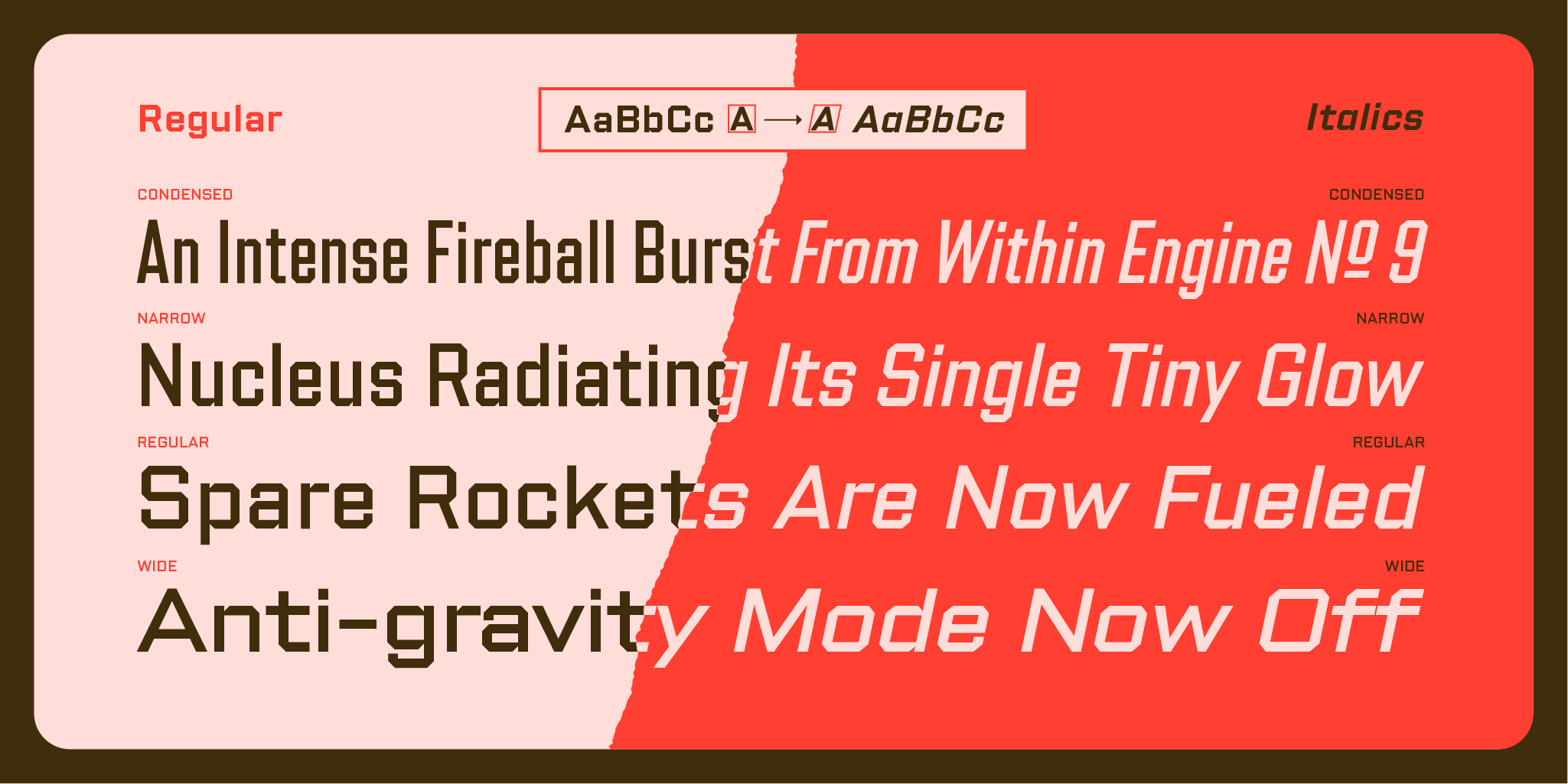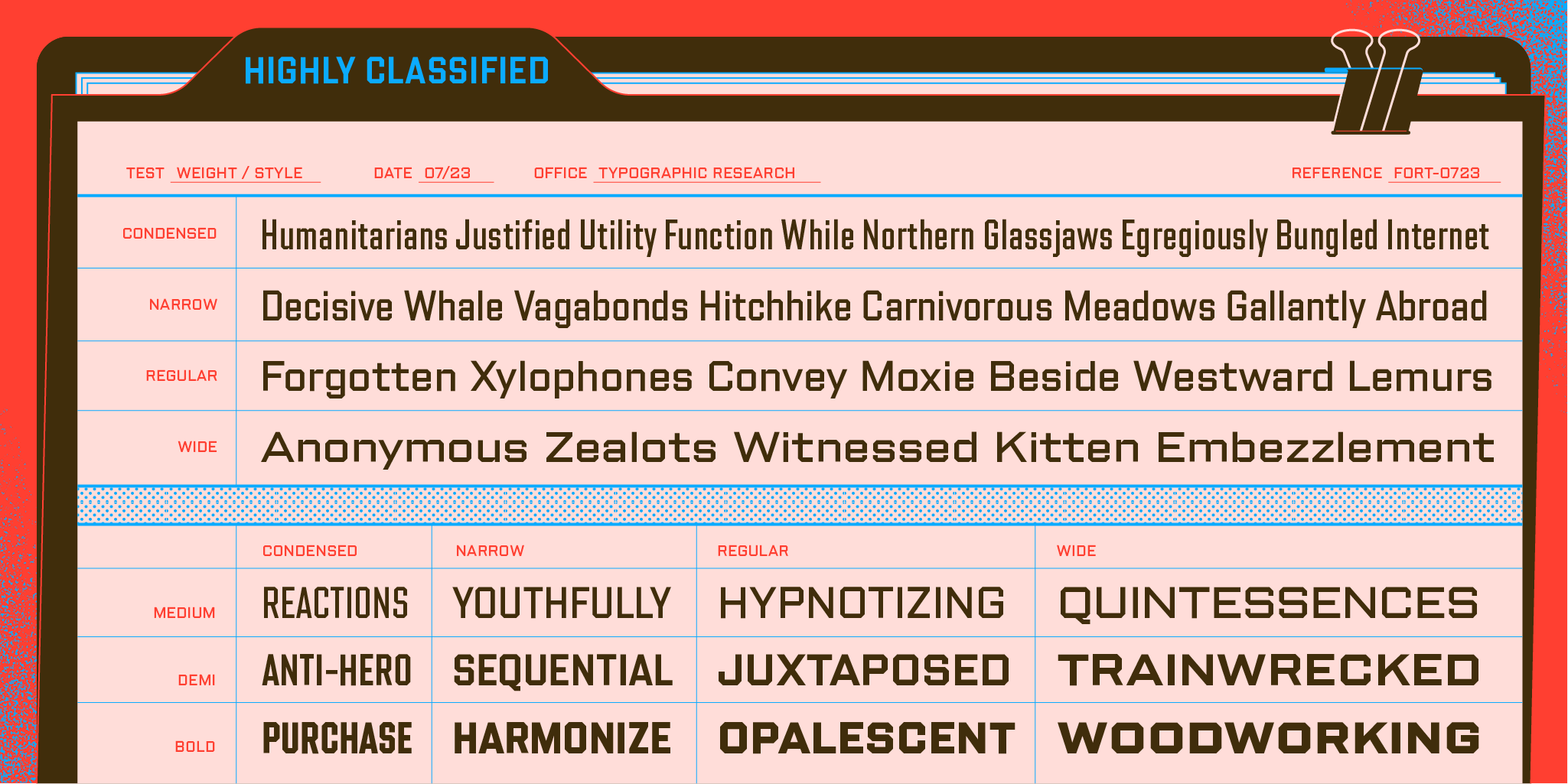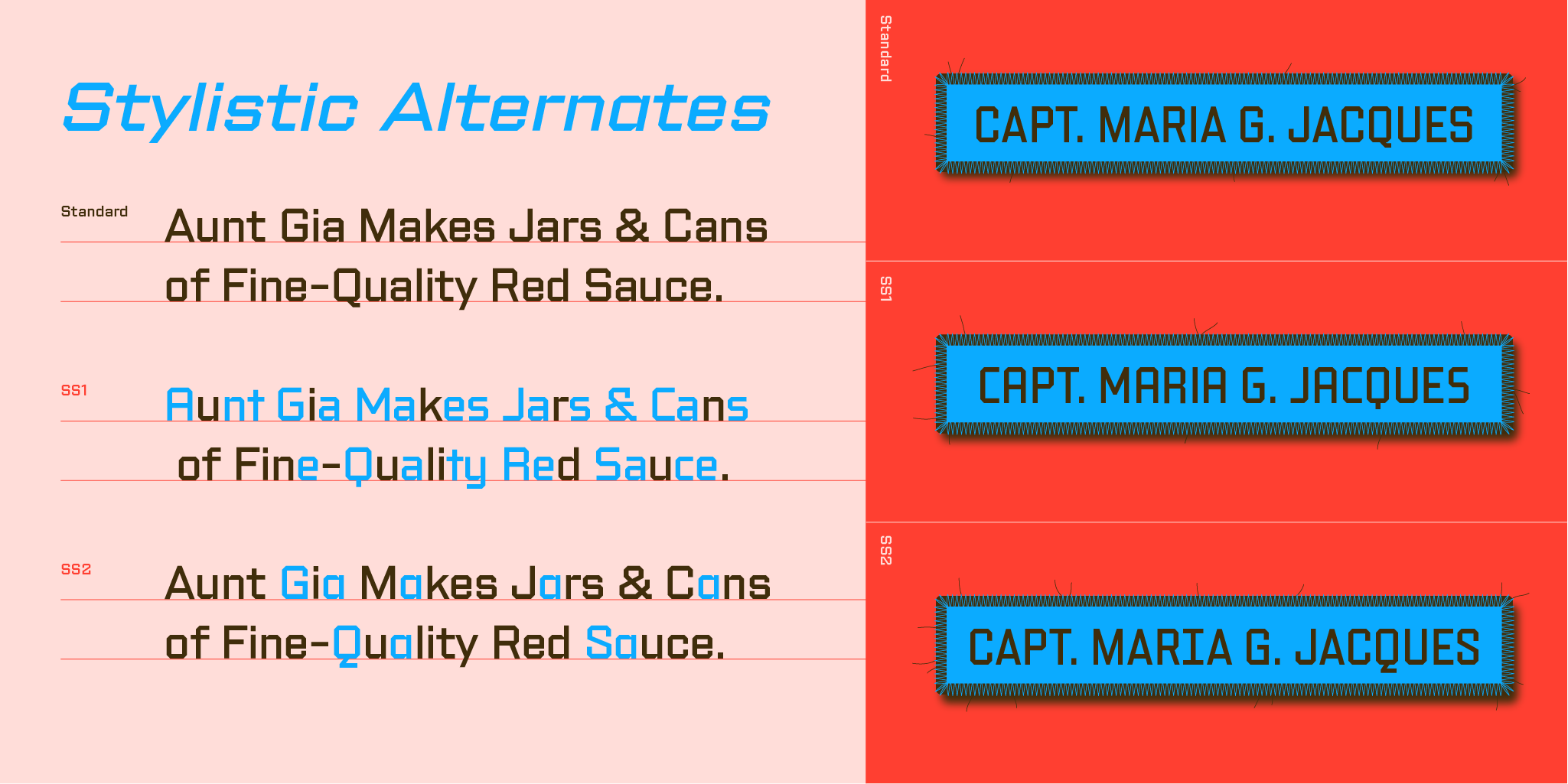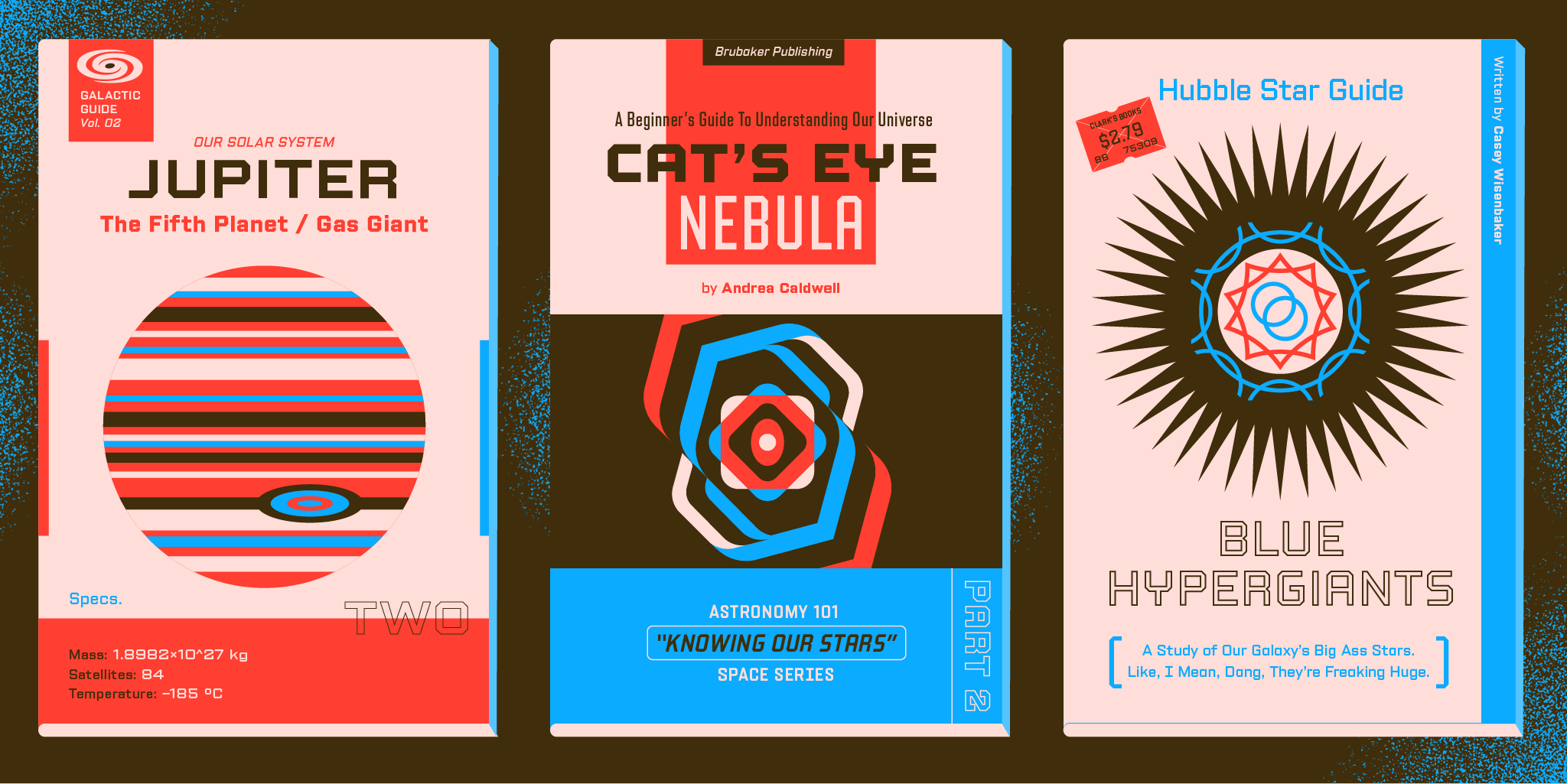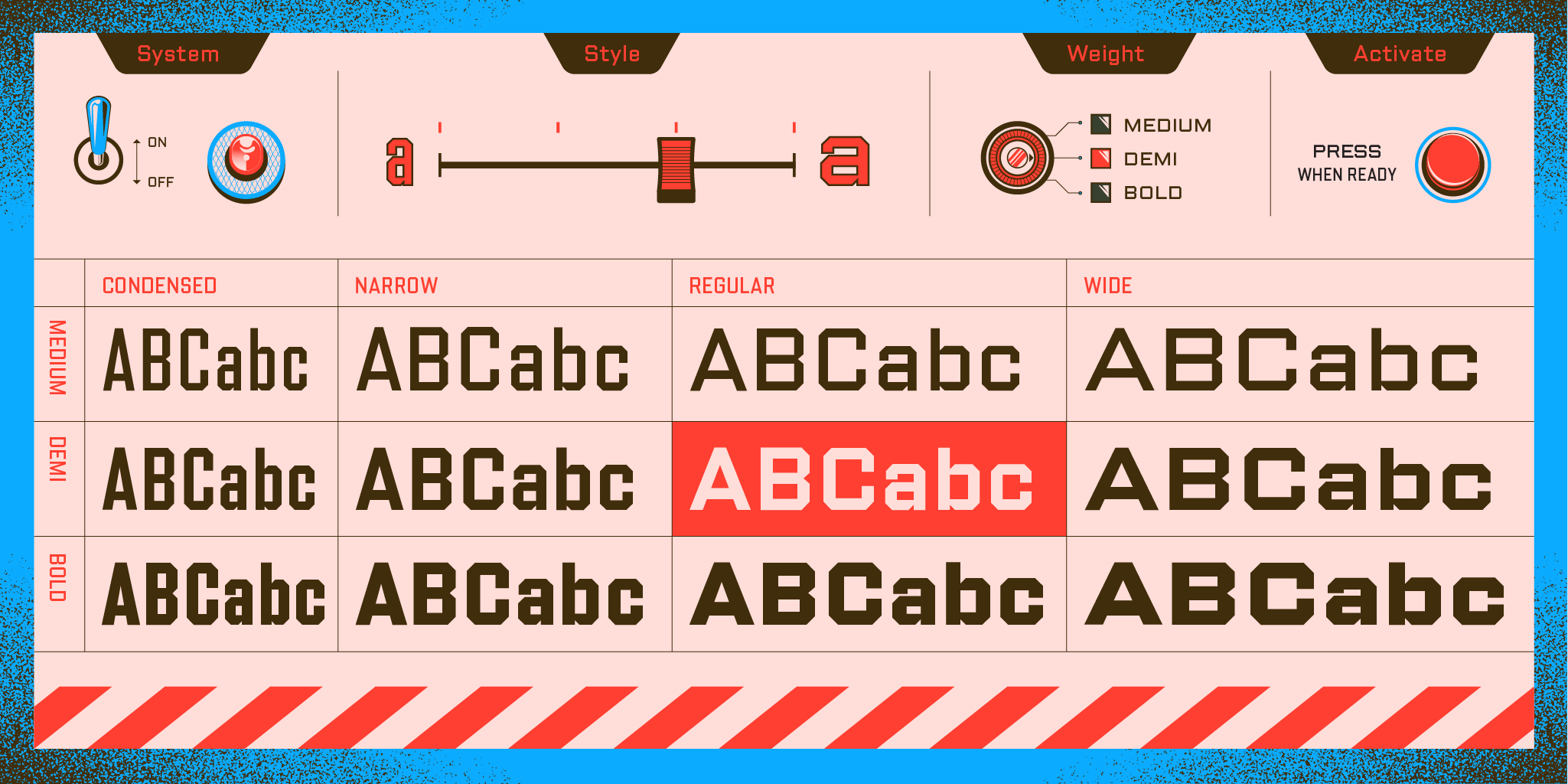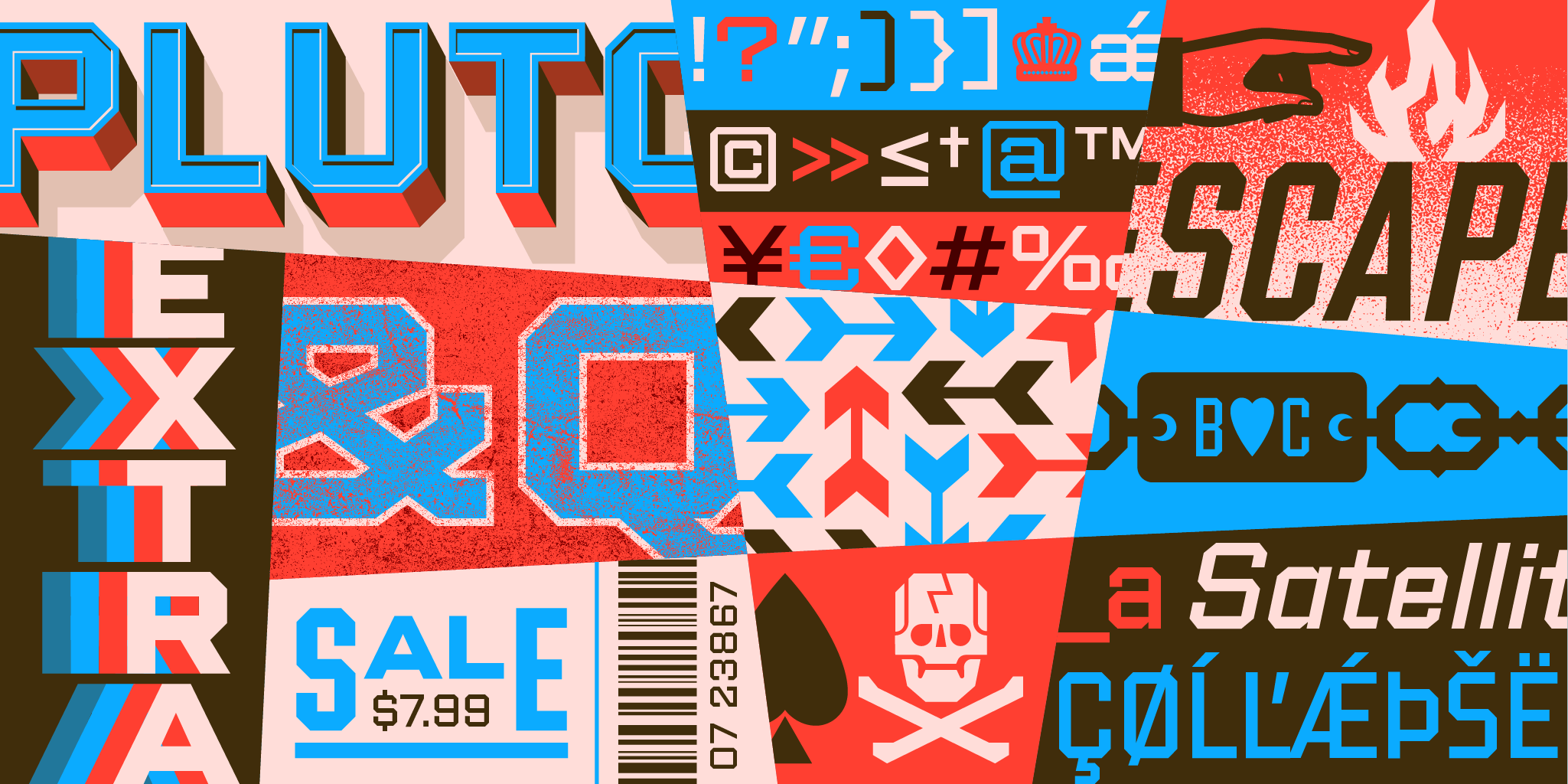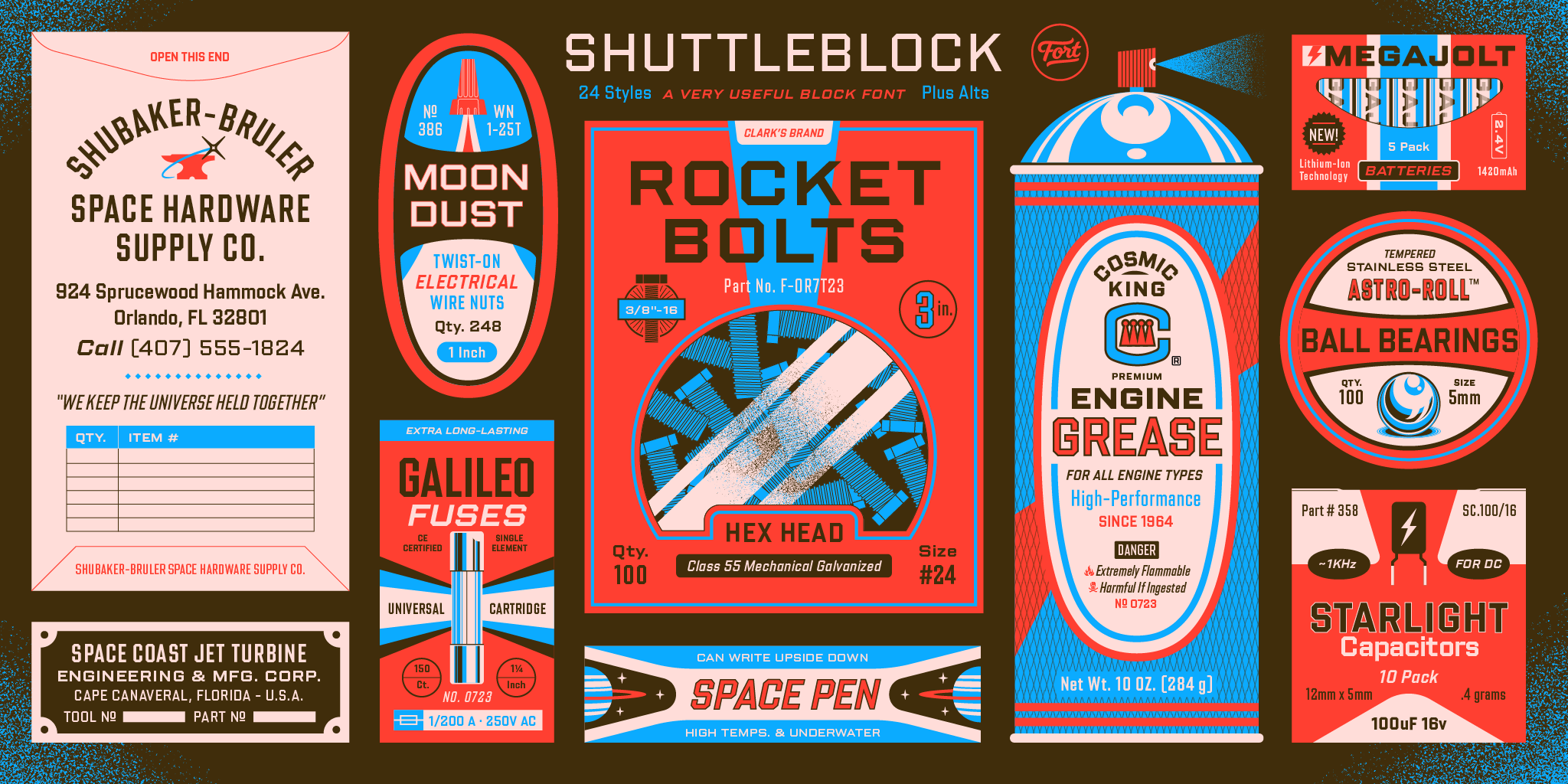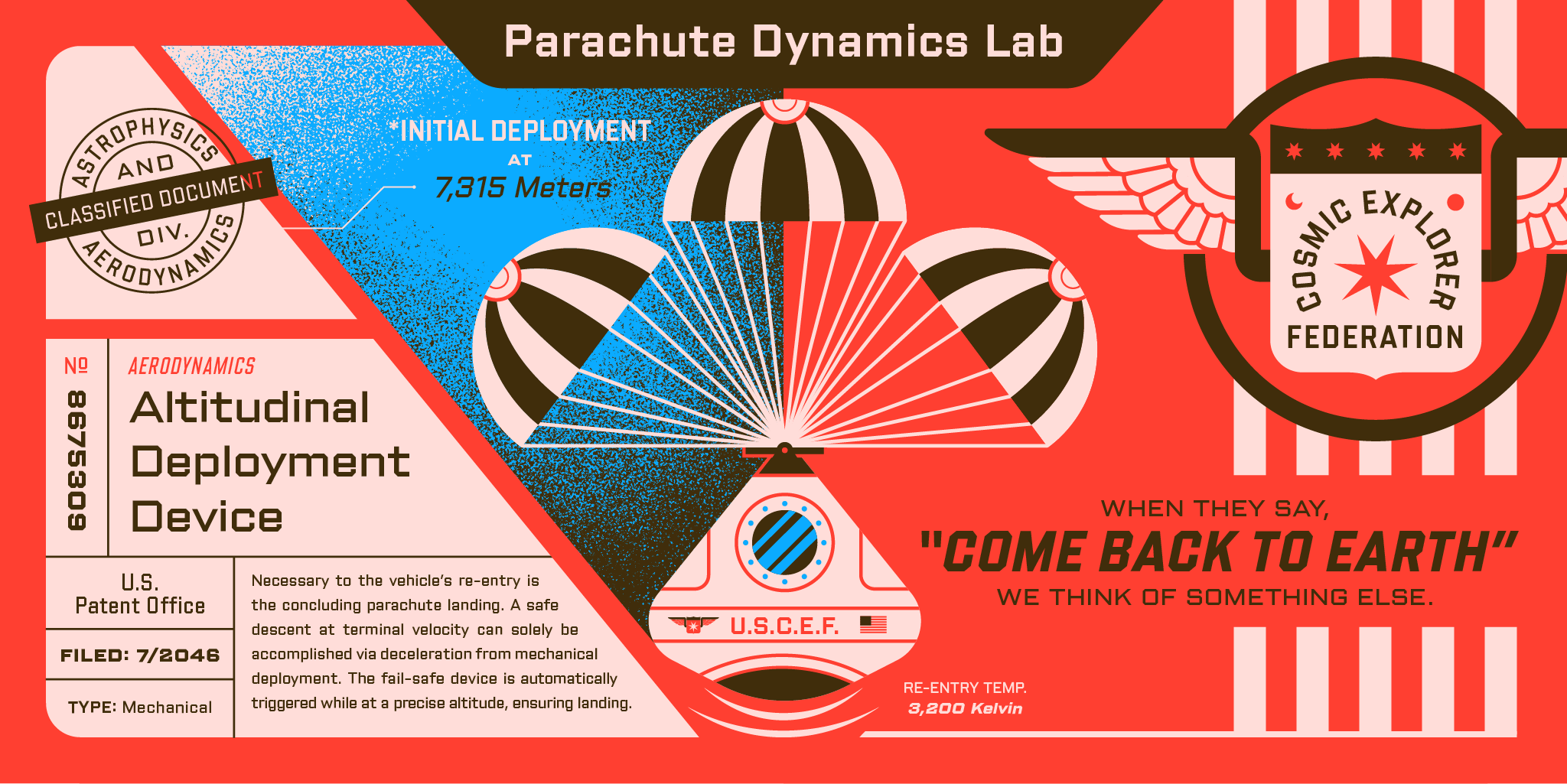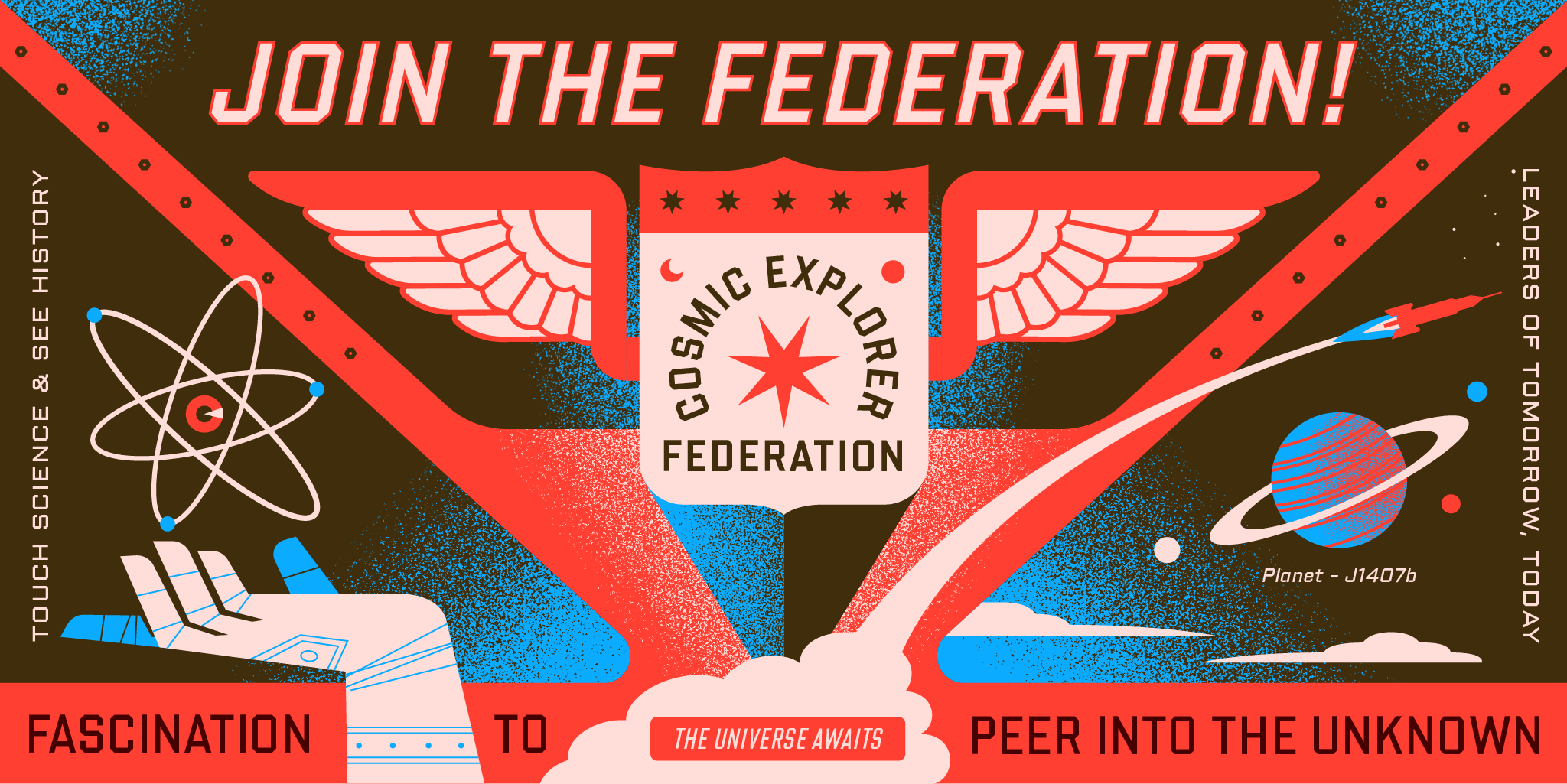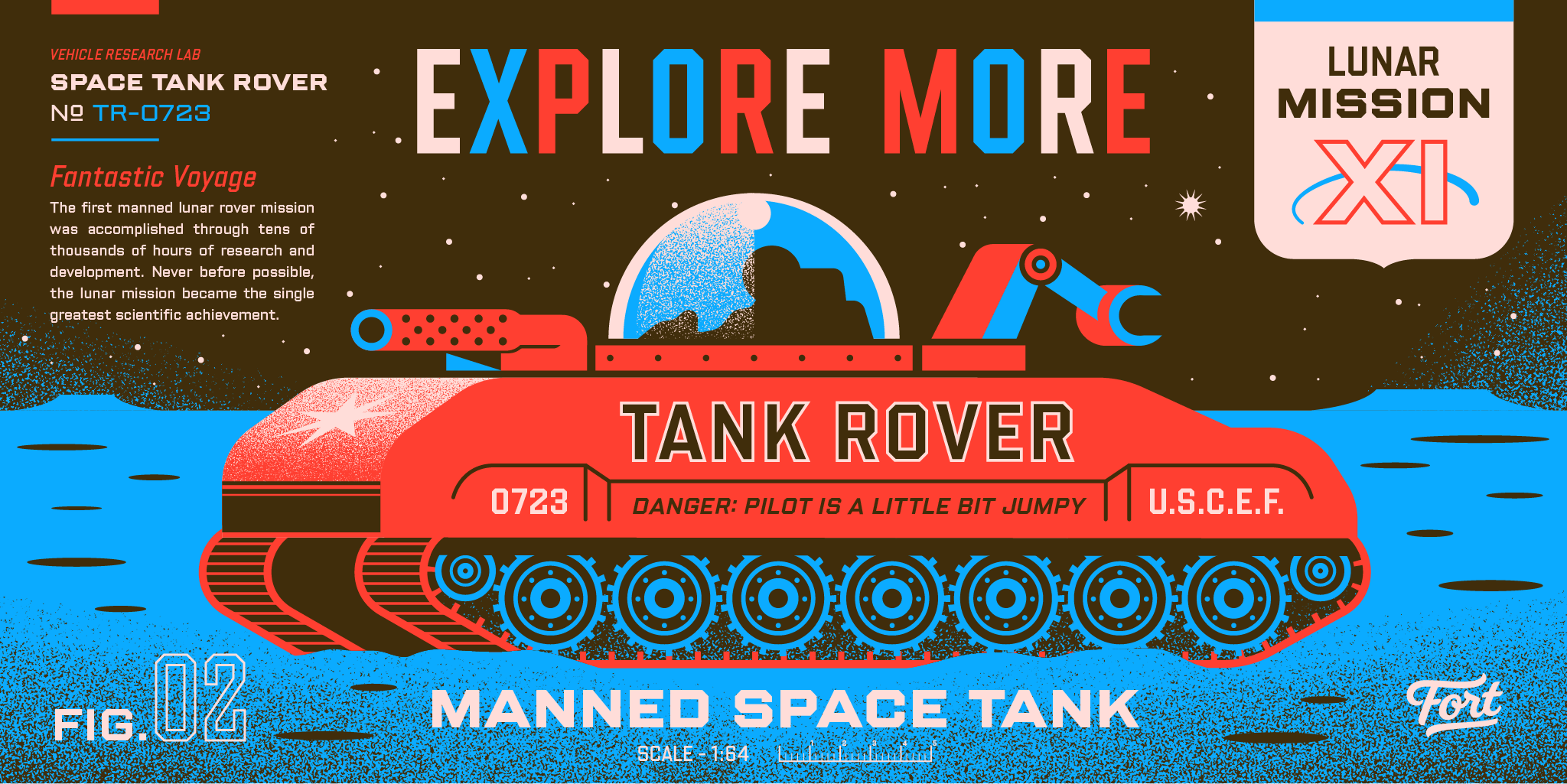
Shuttleblock
Sans
24 Styles
Italics
Uppercase Alternates
Lowercase Alternates
Case-Sensitive Punctuation
Fractions
Tabular Figures
Symbols
Patterns
Classic, solid, and sturdy—worthy of its place on a space shuttle.
Shuttleblock began as an internal set of letters developed and utilized for Brittany Reagan and Clark Orr’s darkly distinctive Hellcats brand. Fort came alongside Clark to help build out the family in an array of weights and widths.
Originally inspired by the block letters found on space initiatives from the last century, Shuttleblock works to balance a refined and classic feel with its sturdy, simple forms. The weights and overall style felt like they asked for a less-is-more approach as they adapt to different design contexts. Shuttleblock comes in 4 widths, each with 3 weights, and is full of helpful alternates, custom designed symbols, and more.